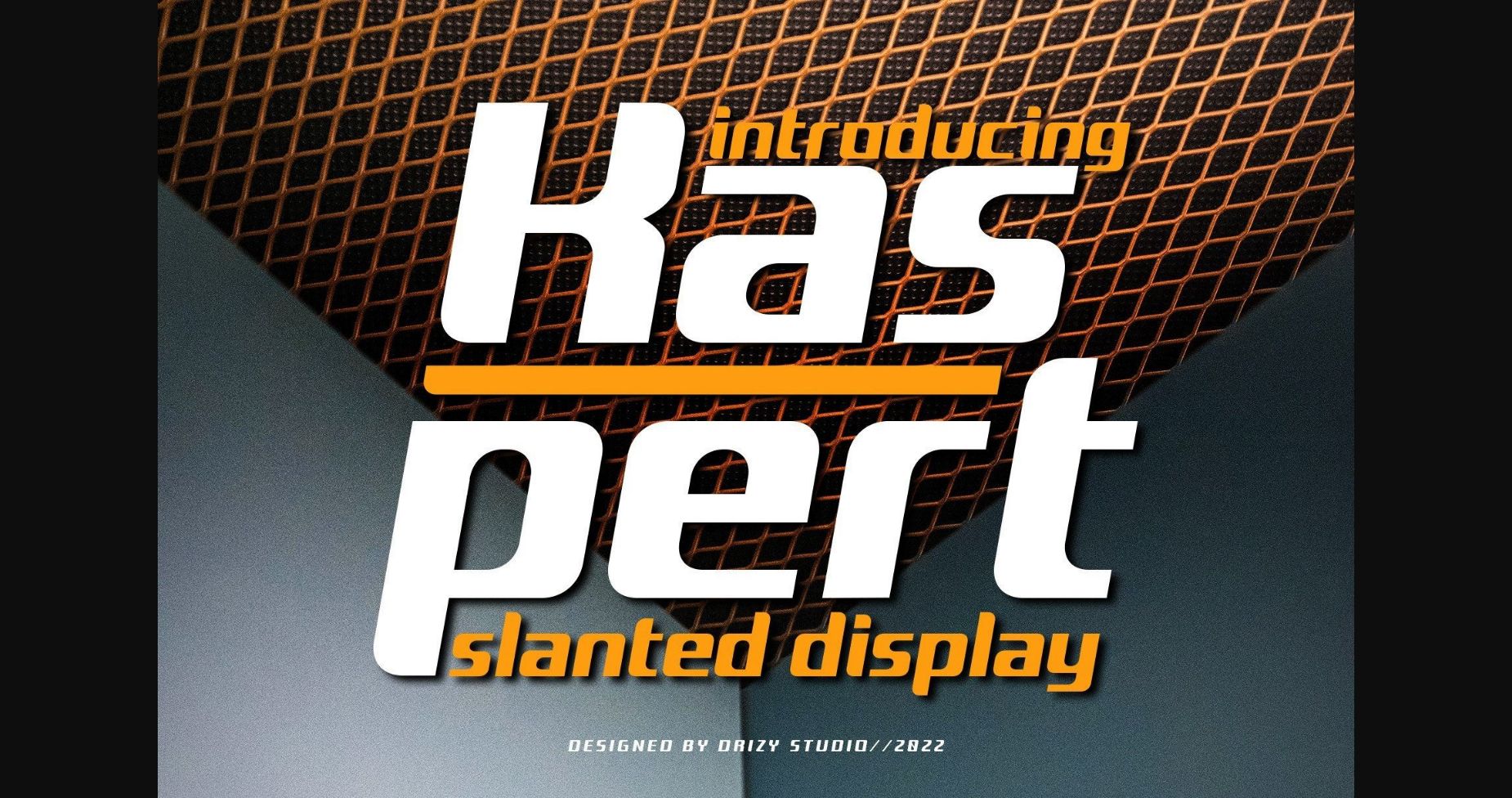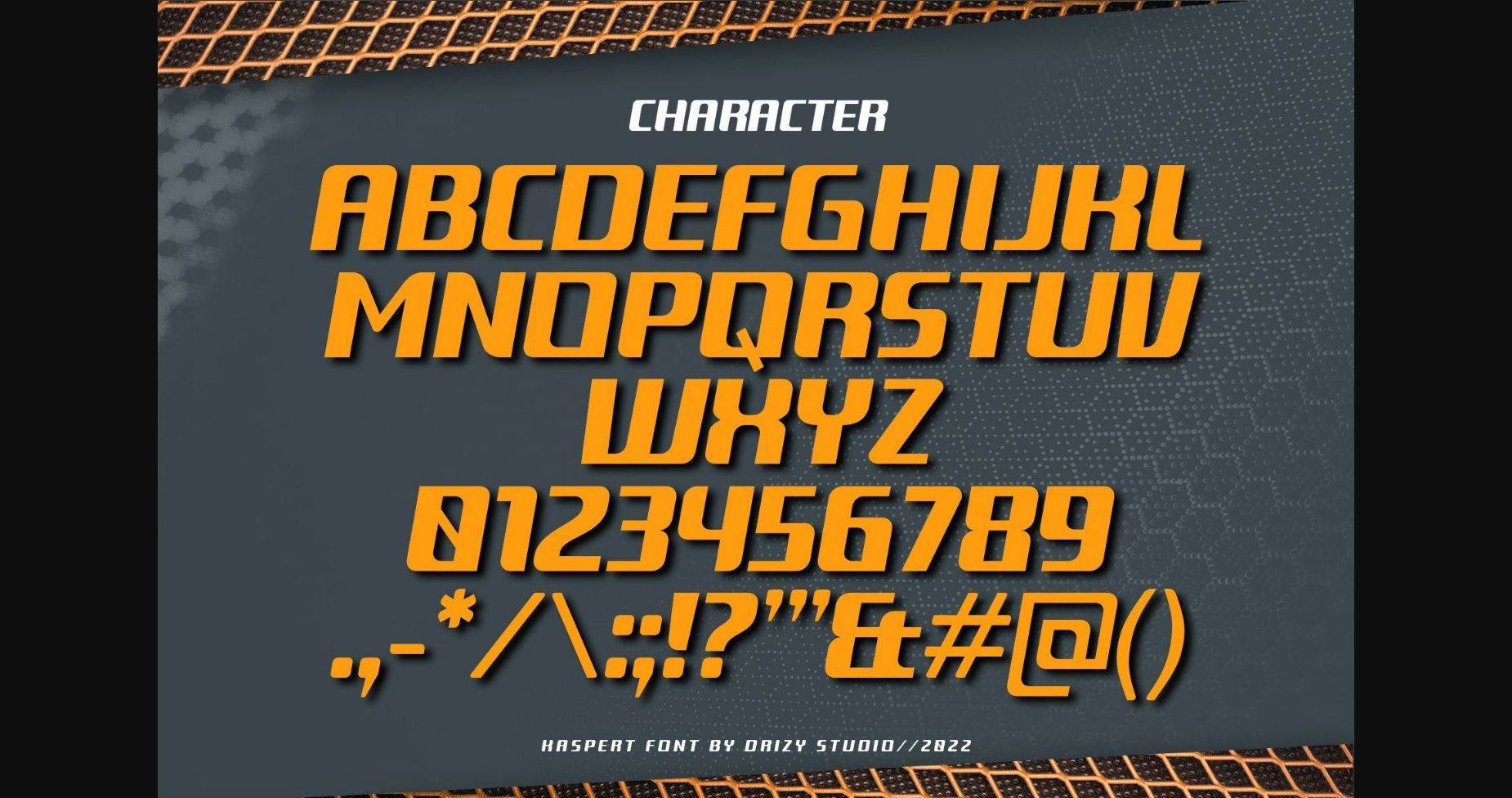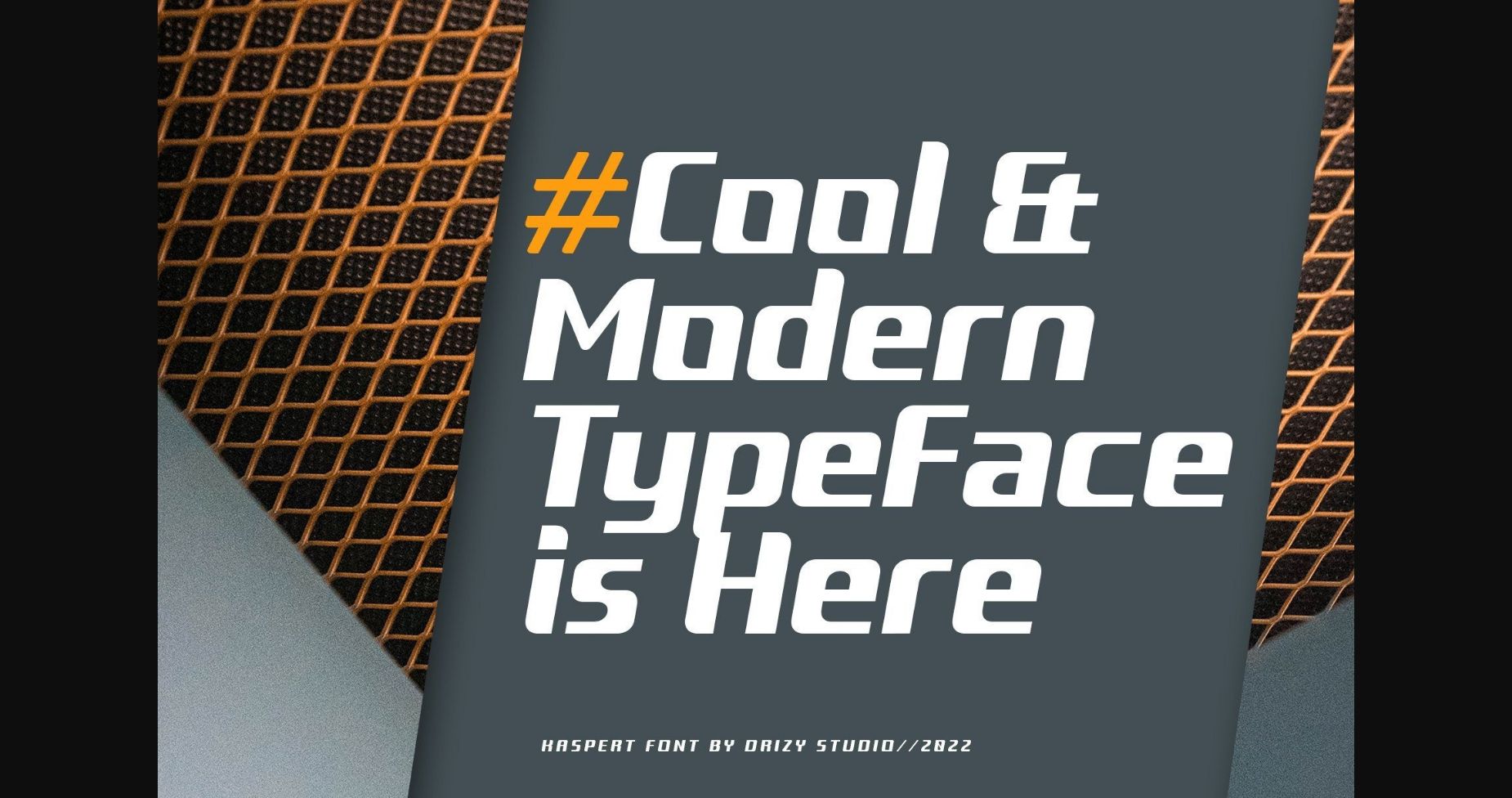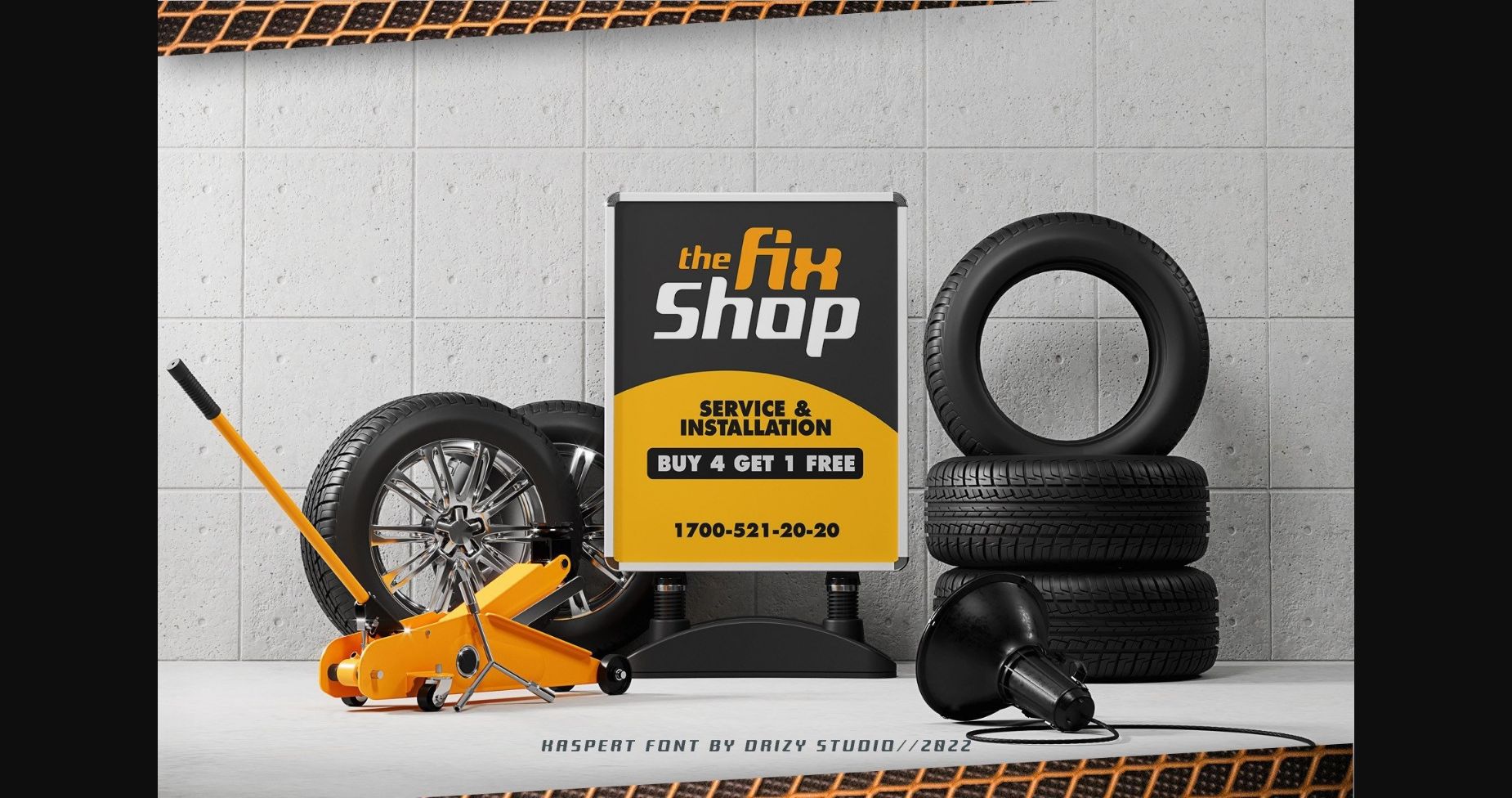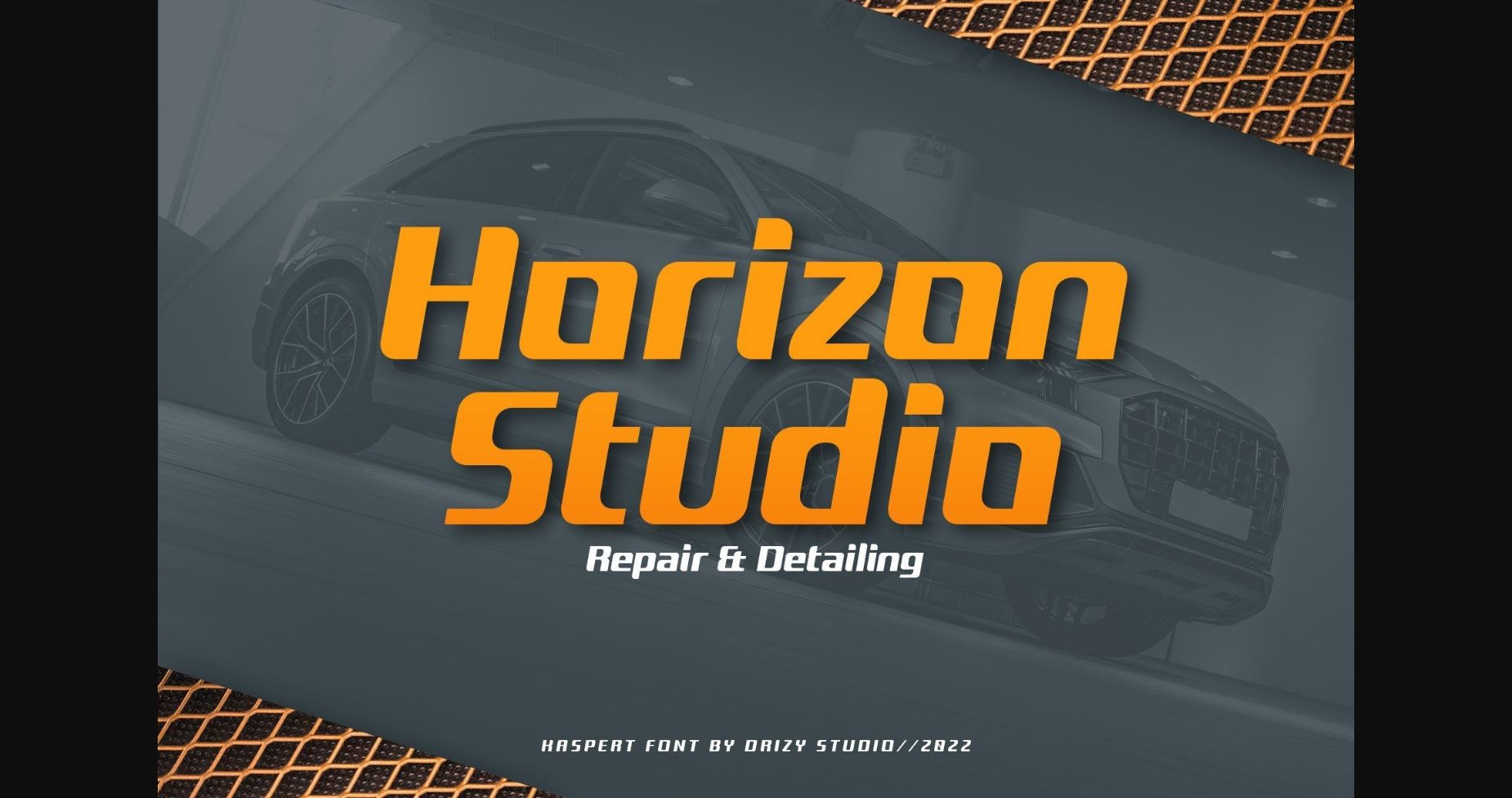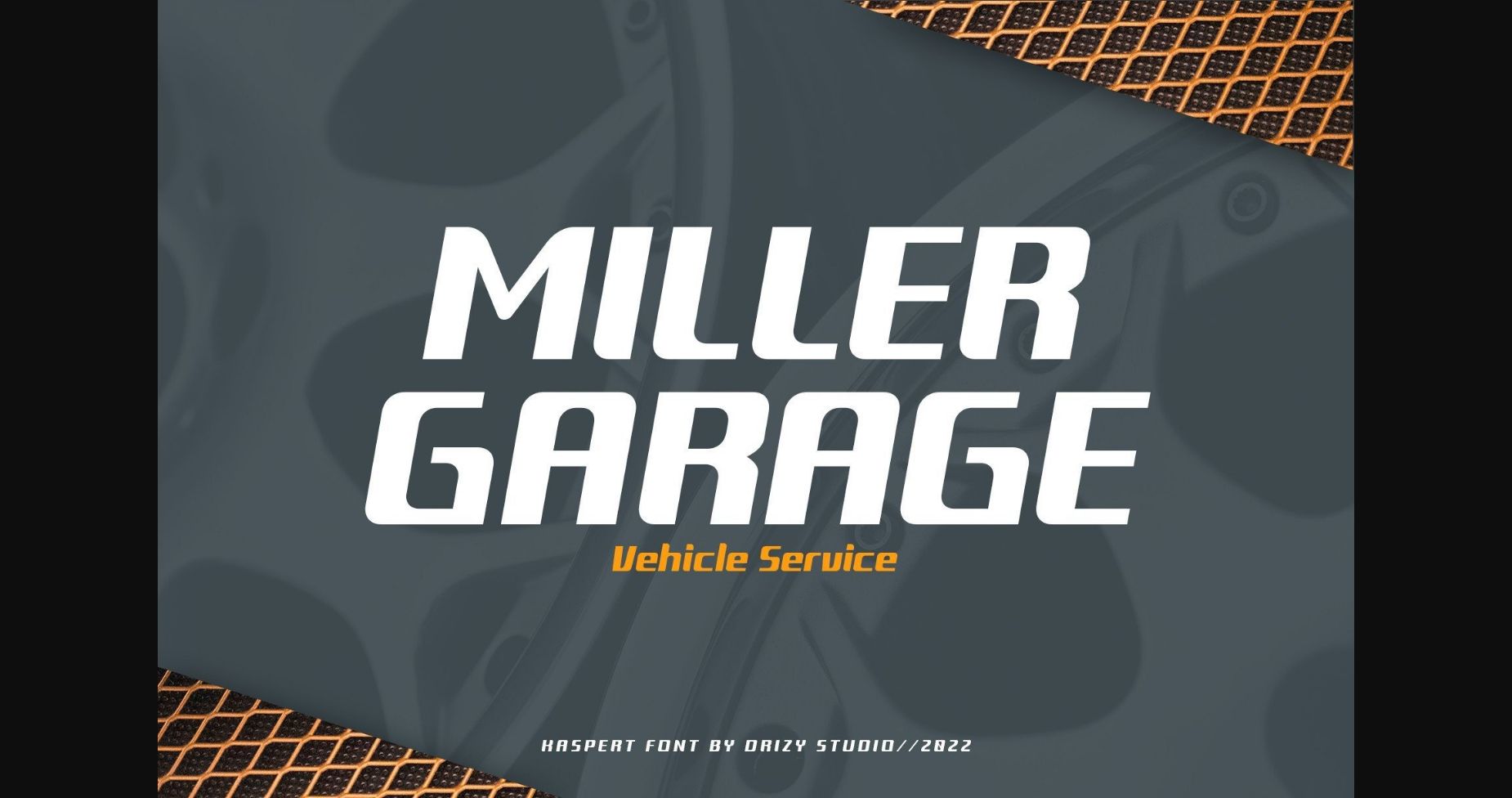
Kaspert Font
About Kaspert Font
Kaspert is a modern and bold display font. Add it confidently to your projects and watch how it makes them come alive.